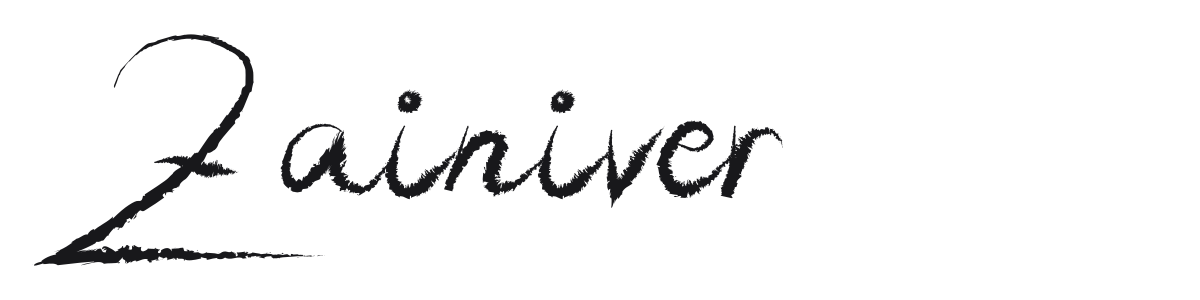
Zainiver
Zainiver is a casual brush script with an authentically rough, dry-brush texture that feels genuinely hand-painted rather than digitally polished. Long sweeping strokes and fluid connections between characters give it a free, spontaneous energy. It carries the kind of imperfect warmth that works well on packaging, logos, and any project that needs a handcrafted feel.